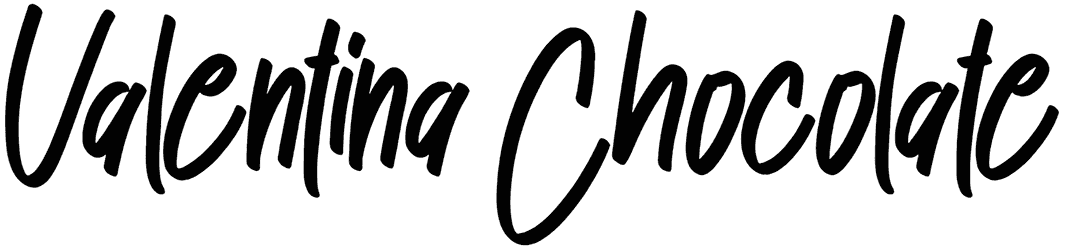
Valentina Chocolate Font
If you want a friendly, charming handwriting font with good legibility, you just need to pick up Valentina Chocolate to convey all those feelings to your upcoming project. It has a complete set of cute characters and smooth texture; therefore, it will be great for product packaging, birthday invitations, homeware designs, movie posters, and commercial aims.